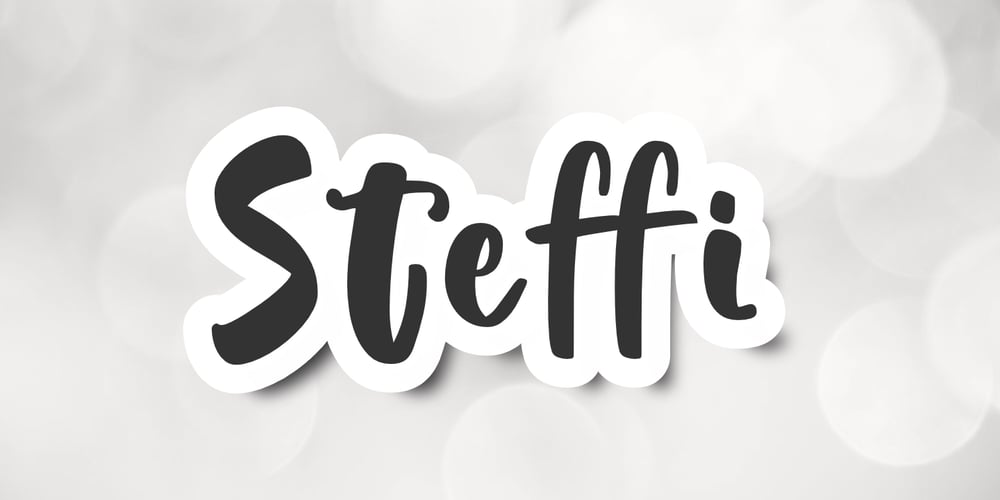
Steffi Font Family was designed by Aldy Sidik and published by Epiclinez. Steffi contains 1 styles and family package options. This font is perfect for adding a little love and warmth to your designs–in a way that feels authentic and personal. Whether you’re designing a t-shirt or logo, this cute hand-drawn font will add a friendly touch to any project.So what’s included : Basic Latin Uppercase and Lowercase Numbers, symbols, and punctuations Multilingual Support. Simple Installations works on PC & Mac Thank You.